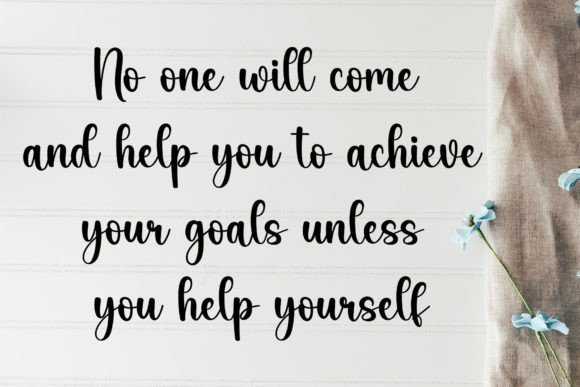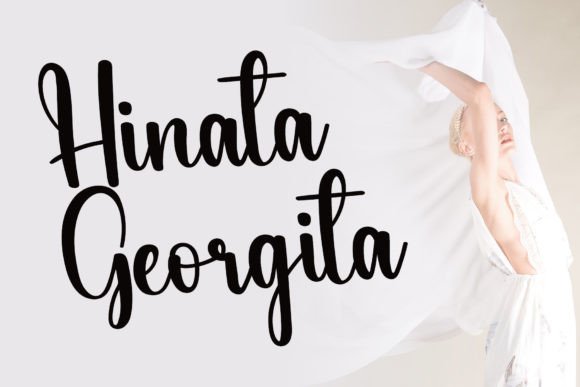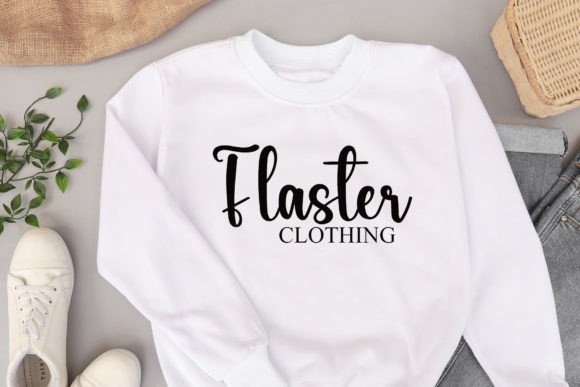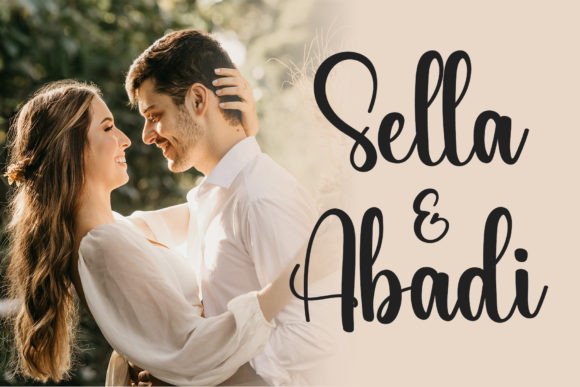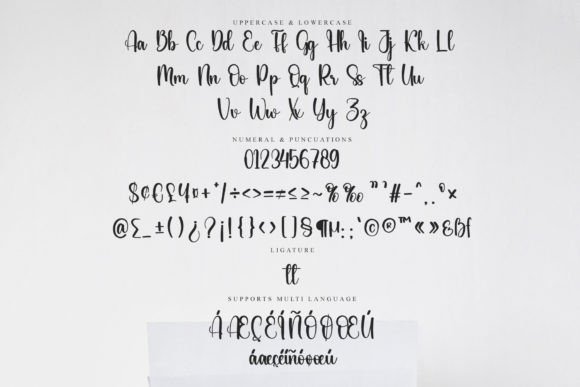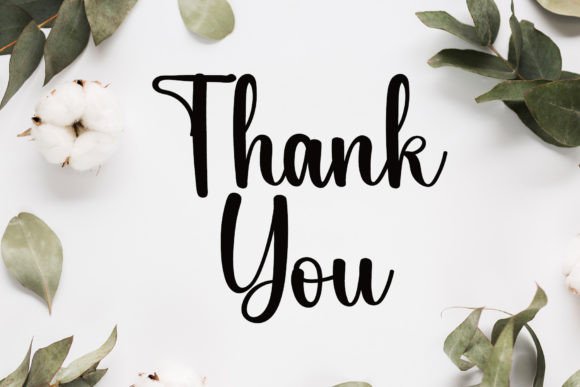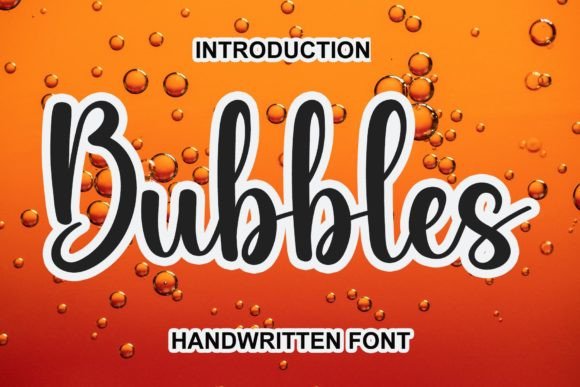
Bubbles Font: The Delicate, Elegant, and Flowing Handwritten Font for Your Favorite Projects
Are you a designer or crafter looking for a font that can add a touch of elegance and sophistication to your projects? Look no further than Bubbles Font! This delicate, elegant, and flowing handwritten font is perfect for creating spectacular designs that will leave a lasting impression. In this article, we’ll take a closer look at Bubbles Font, its features, and how you can use it to elevate your design game.
What is Bubbles Font?
Bubbles Font is a beautiful, handwritten font that is characterized by its incredibly distinct and timeless style. The font features delicate, flowing lines that give it a sense of elegance and sophistication. Its unique style makes it perfect for a wide range of projects, from wedding invitations and branding materials to social media graphics and crafts.
Features of Bubbles Font
So, what makes Bubbles Font so special? Here are some of its key features:
- Delicate and elegant: Bubbles Font features delicate, flowing lines that give it a sense of elegance and sophistication.
- Handwritten style: The font has a beautiful, handwritten style that gives it a personal and unique touch.
- Timeless design: Bubbles Font has a timeless design that will never go out of style.
- Versatile: The font is perfect for a wide range of projects, from wedding invitations and branding materials to social media graphics and crafts.
How to Use Bubbles Font
Now that we’ve covered the features of Bubbles Font, let’s talk about how you can use it in your projects. Here are some ideas to get you started:
- Wedding invitations: Bubbles Font is perfect for creating beautiful, elegant wedding invitations that will set the tone for your special day.
- Branding materials: Use Bubbles Font to create stunning branding materials, such as logos, business cards, and brochures.
- Social media graphics: Add a touch of elegance to your social media graphics, such as Instagram posts and Facebook covers, with Bubbles Font.
- Crafts: Bubbles Font is also perfect for crafters who want to add a personal touch to their projects, such as scrapbooking and card making.
Tips for Using Bubbles Font
Here are some tips for using Bubbles Font effectively in your projects:
- Pair it with other fonts: Bubbles Font looks great when paired with other fonts, such as sans-serif fonts and script fonts.
- Use it in moderation: While Bubbles Font is beautiful, it can be overwhelming if used too much. Use it in moderation to create a balanced design.
- Experiment with colors: Bubbles Font looks great in a variety of colors, from soft pastels to bold and bright colors.
In conclusion, Bubbles Font is a beautiful, delicate, elegant, and flowing handwritten font that is perfect for a wide range of projects. Its incredibly distinct and timeless style makes it a great addition to any designer’s or crafter’s toolkit. With its versatility and elegance, Bubbles Font is sure to become a favorite font for many designers and crafters. So why not give it a try and see how it can elevate your design game?
Whether you’re a seasoned designer or a crafter looking for a new font to add to your collection, Bubbles Font is definitely worth checking out. Its unique style and versatility make it a great choice for anyone looking to create spectacular designs that will leave a lasting impression.